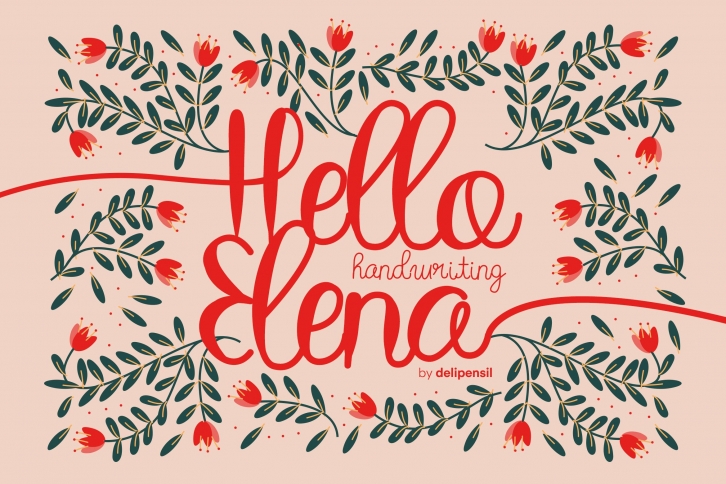
Hello Elena is an elegant, clean, luxury, feminim, classic, and beautiful font. Use it for headlines, paragraphs, cover photos, web design, logo, and everything with the elegant touch you can get it now :)